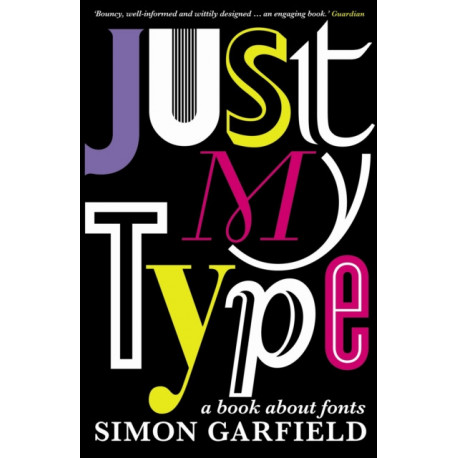
Describes how Helvetica and Comic Sans took over the world; why Barack Obama opted for Gotham, while Amy Winehouse found her soul in 30s Art Deco; the pivotal moment when fonts left the world of Letraset and were loaded onto computers; and more.